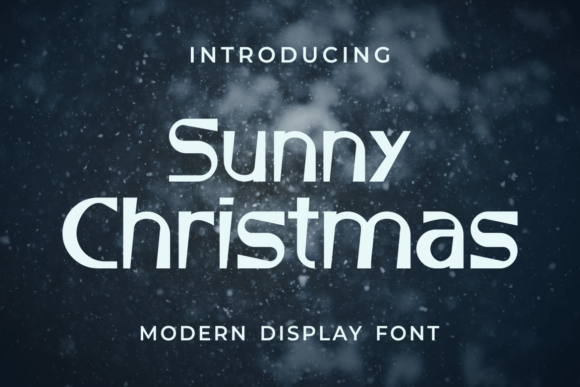
Sunny Christmas Font
Journey into a world of enchantment with Sunny Christmas Font, a display font that captures the joyous spirit of the holiday season. Its charming characters dance across your designs, bringing warmth and festive cheer to every word. Immerse yourself in the magic of Sunny Christmas, and let your creativity soar to new heights.
With its playful curves and whimsical details, Sunny Christmas adds a touch of delight to any project. Whether you're crafting holiday greetings, designing festive posters, or creating eye-catching social media graphics, Sunny Christmas brings your words to life with its infectious energy.
But Sunny Christmas isn't just for the holidays. Its versatility extends far beyond the Christmas season. Its cheerful personality and playful spirit lend themselves perfectly to a wide range of projects, from invitations and posters to logos and branding. Let Sunny Christmas infuse your designs with positivity and light, no matter the occasion.
Step into a realm of creativity with Sunny Christmas, where your imagination takes center stage. This remarkable font family invites you to explore endless possibilities, transforming your projects into masterpieces of festive cheer. Embrace the magic of Sunny Christmas and embark on a journey of design delight.
Indulge in the beauty of Sunny Christmas Font, and let your creativity shine. Its charm and versatility are the perfect companions for your next project, spreading joy and enchantment wherever it goes. Dive into the festive spirit with Sunny Christmas, and let your designs sparkle with the magic of the season.